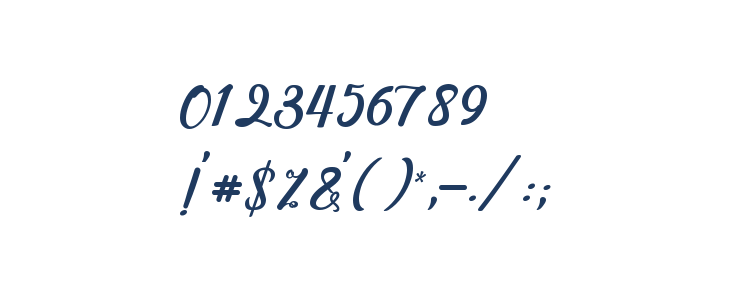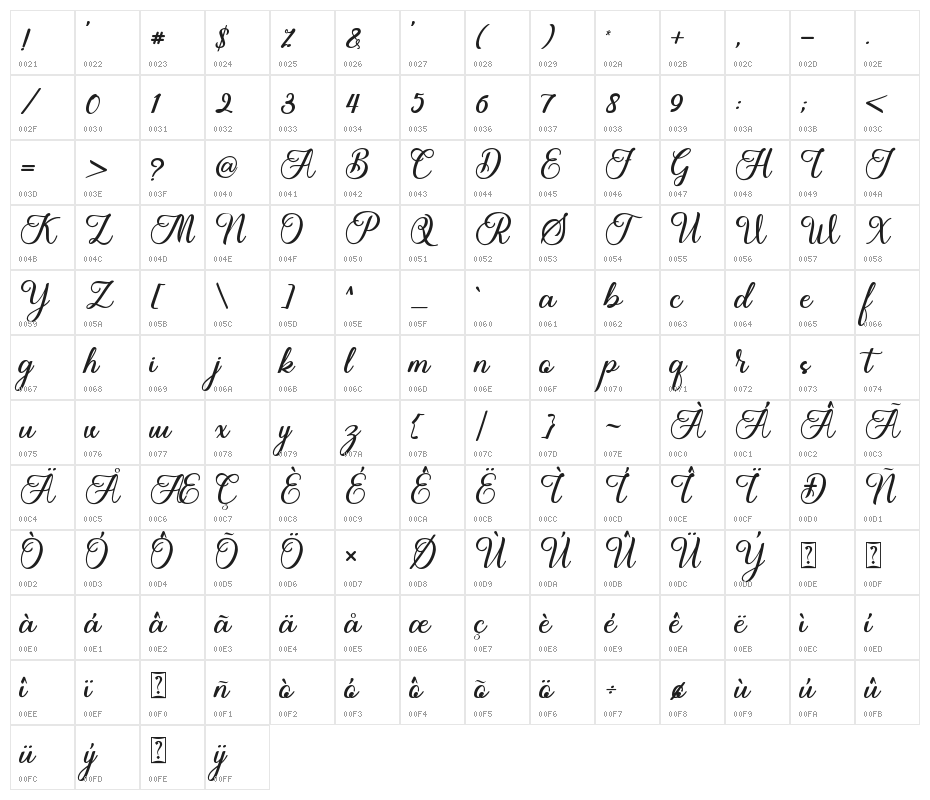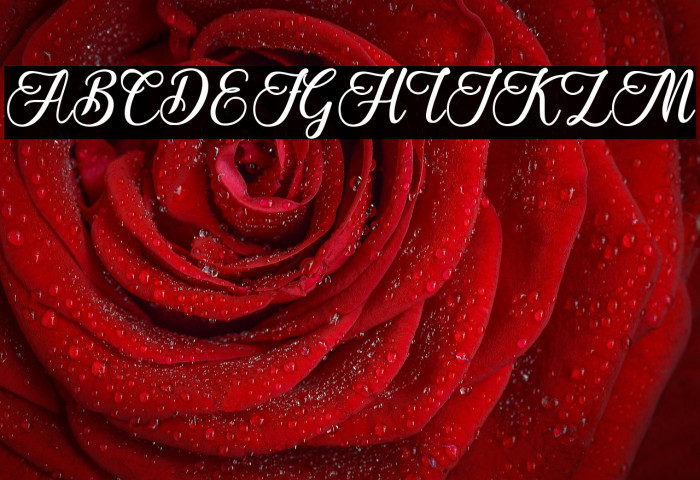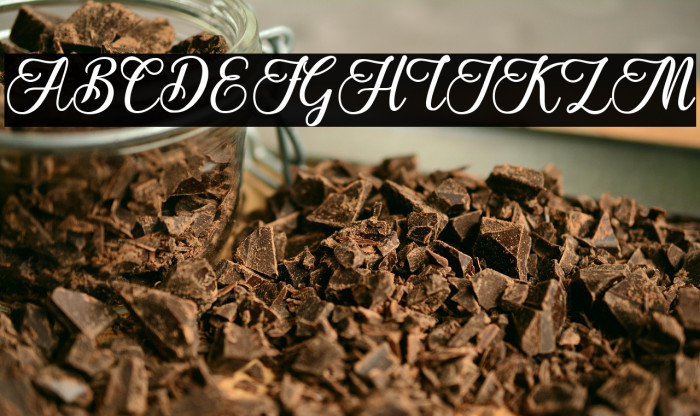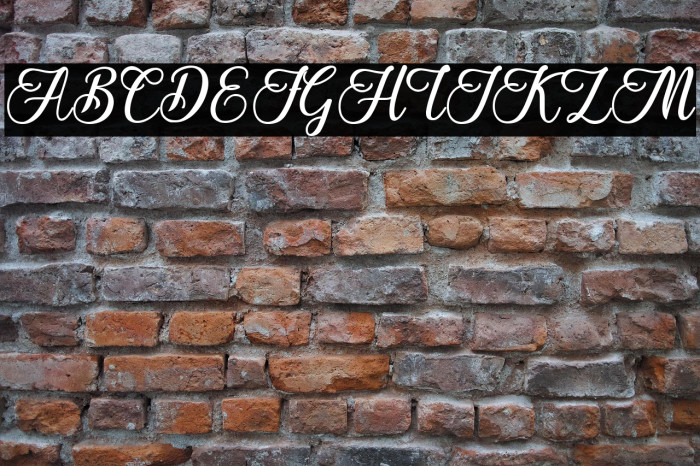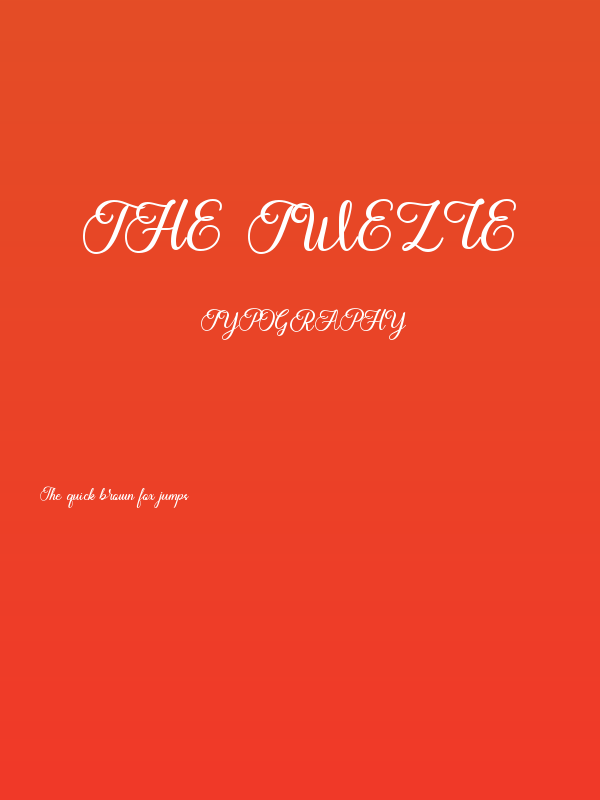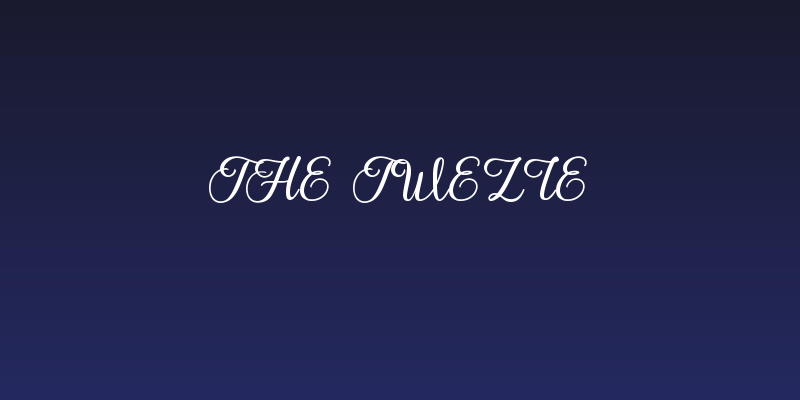
The Twelie Font
The Twelie Description
This font features a flowing, cursive style that mimics elegant handwriting. The uppercase letters are ornate with smooth curves and loops, while the lowercase letters maintain a consistent slant, enhancing the script's fluidity. The numerals are distinct yet harmonize with the overall script style, offering a cohesive look. Special characters are designed with the same attention to detail, ensuring they blend seamlessly with both letters and numbers. The font's overall appearance is sophisticated, making it suitable for formal invitations, branding, or any project requiring a touch of elegance.
| Proposed Projects | Ideal for wedding invitations, luxury branding, greeting cards, and elegant packaging. |